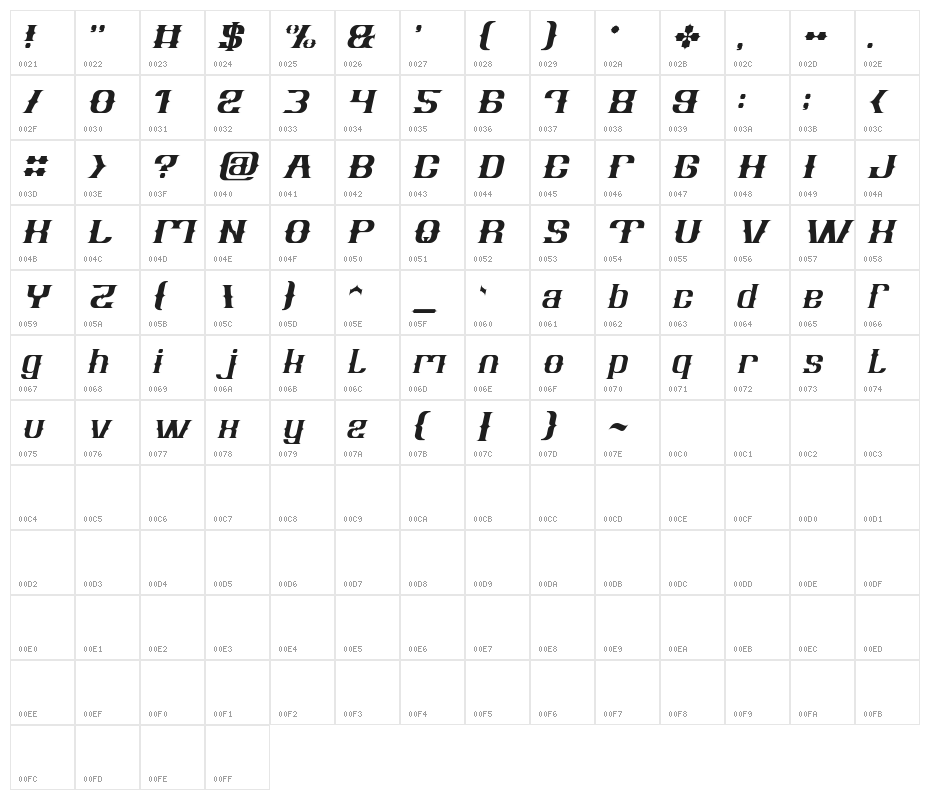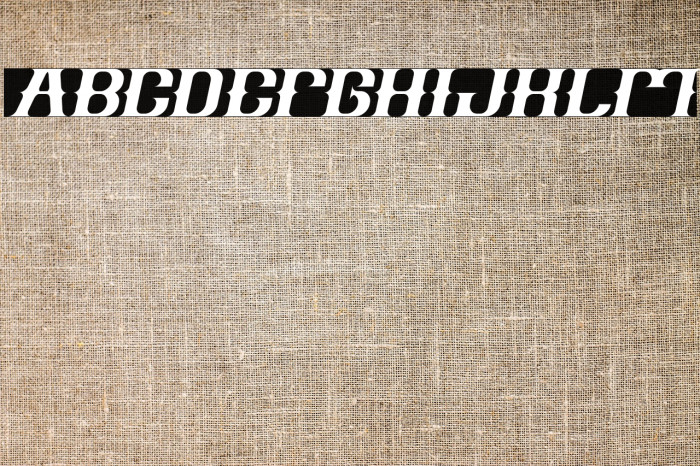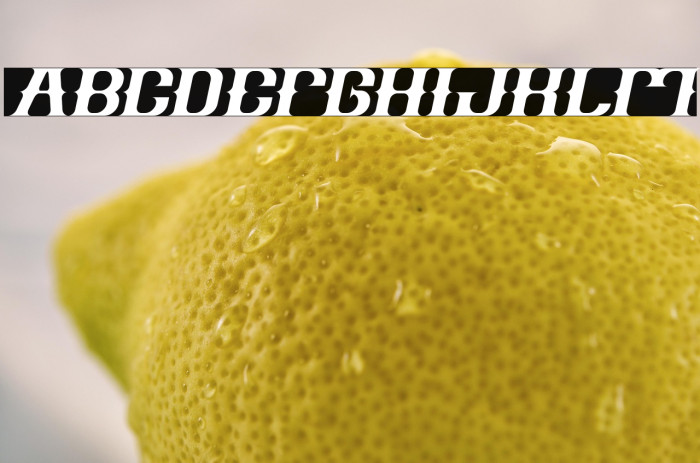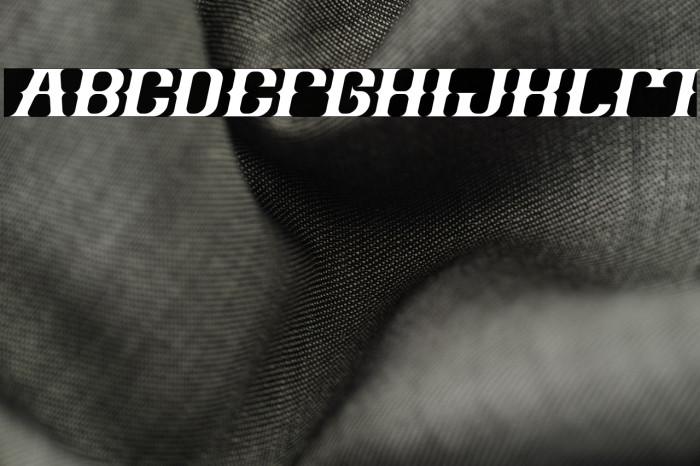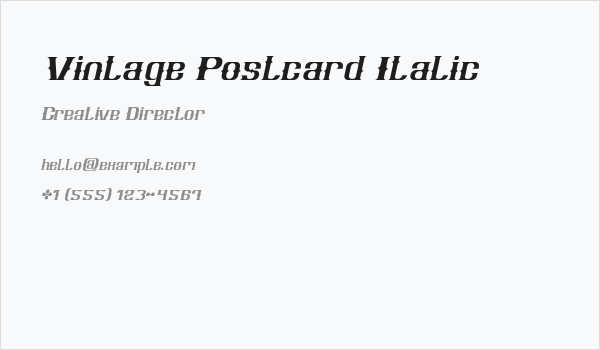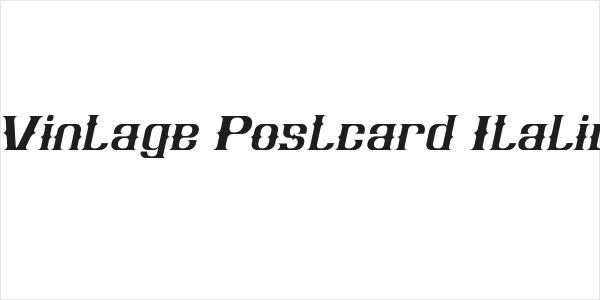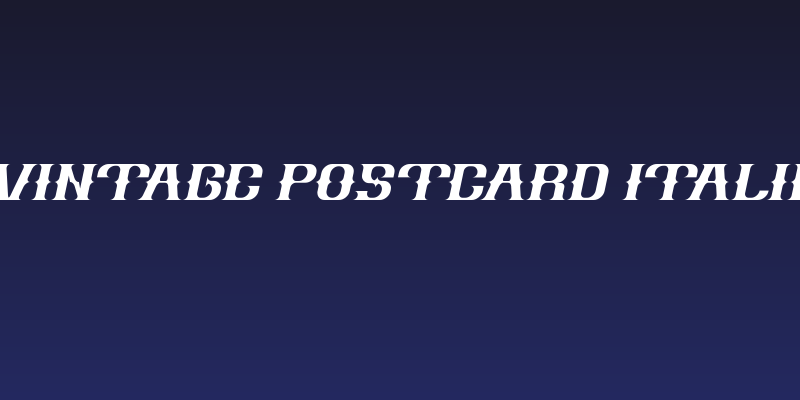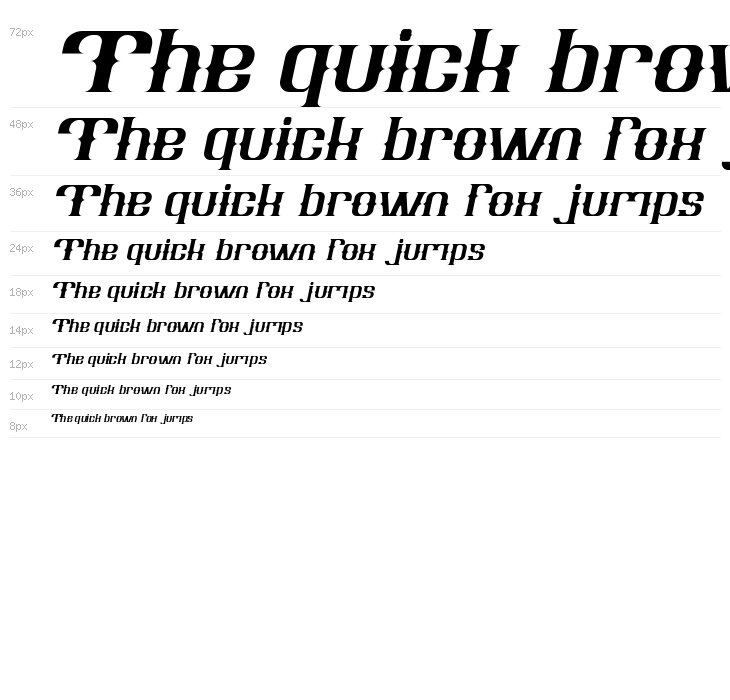
Vintage Postcard Italic Font
Vintage Postcard Italic Description
This font exudes a vintage charm with its italicized, bold strokes and decorative flair. The characters are uniquely designed with sharp angles and curves, reminiscent of classic postcards and retro signage. The uppercase letters are bold and assertive, while the lowercase letters maintain a consistent style with a slightly more delicate touch. Numbers and special characters follow the same aesthetic, ensuring a cohesive look across all text. The font's distinct personality makes it ideal for projects that require a nostalgic or historical feel.
| Use Case | Headlines, Logos, Decorative text |
| Proposed Projects | Ideal for vintage-themed posters, retro branding, greeting cards, and decorative signage. |